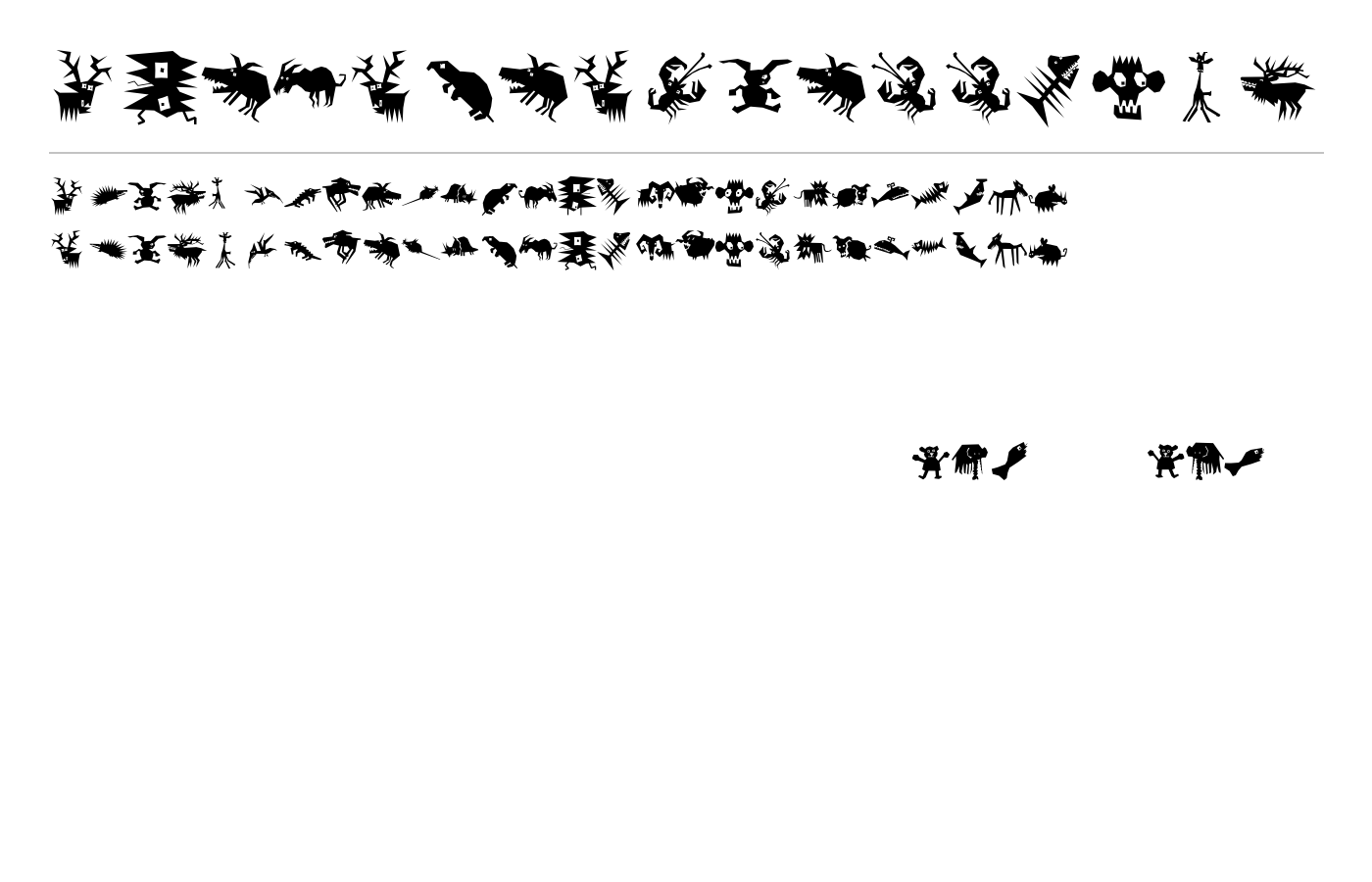
AnimaliaScissored is a highly decorative and whimsical ornamental font featuring cut-out animal silhouettes that create a playful and bold look. Its intricate, jagged shapes and heavy black forms make it ideal for creative projects seeking a unique, eye-catching style with a natural or wildlife theme. This font is best suited for display use in logos, posters, or packaging where a fun and distinctive character is desired rather than for body text.
AnimaliaScissored Font
About AnimaliaScissored Font